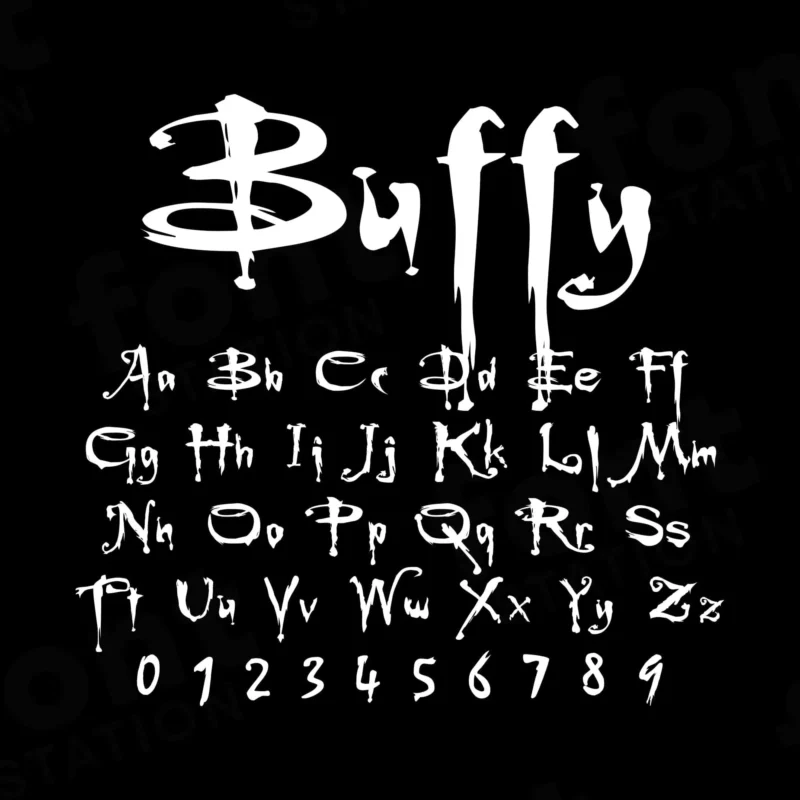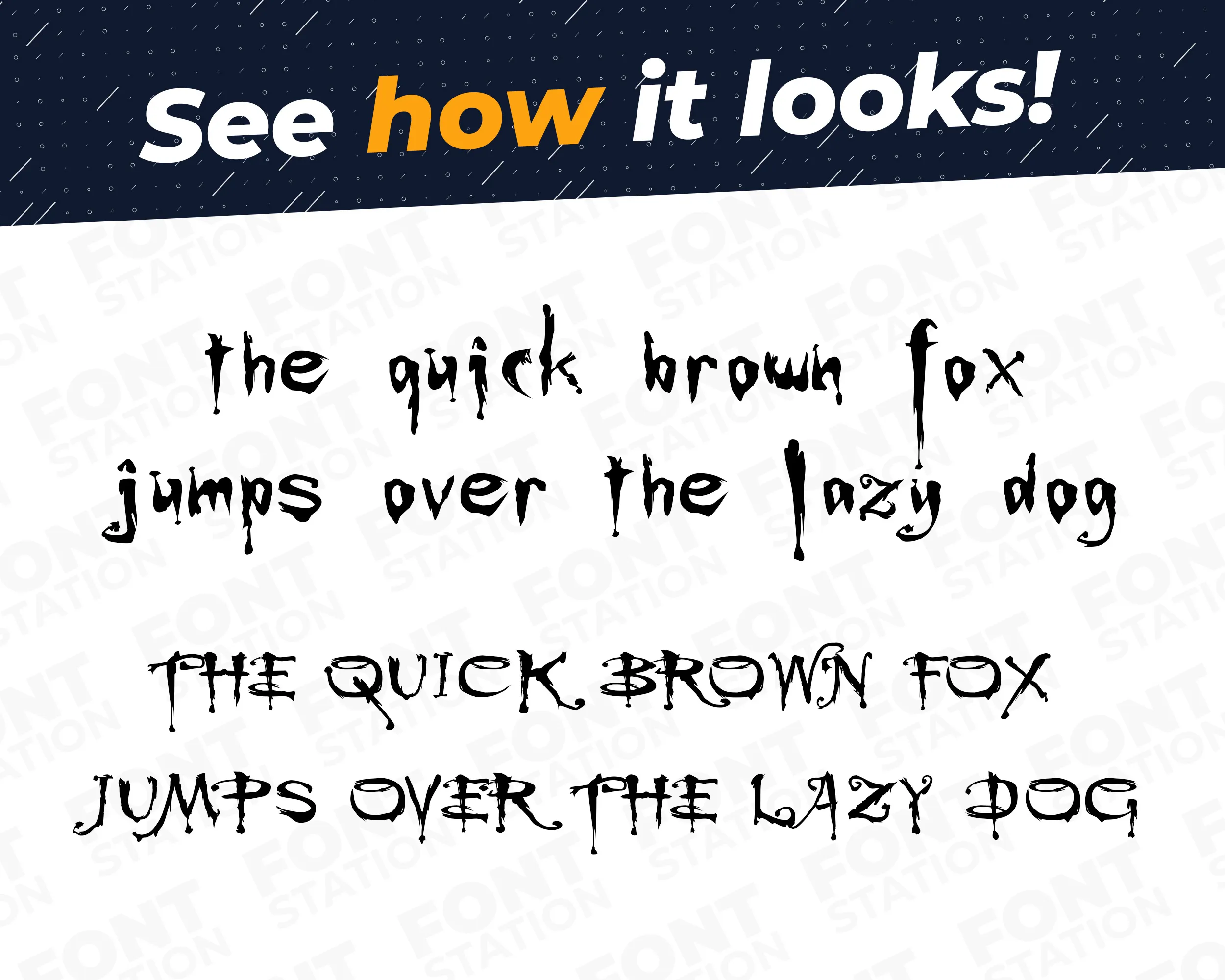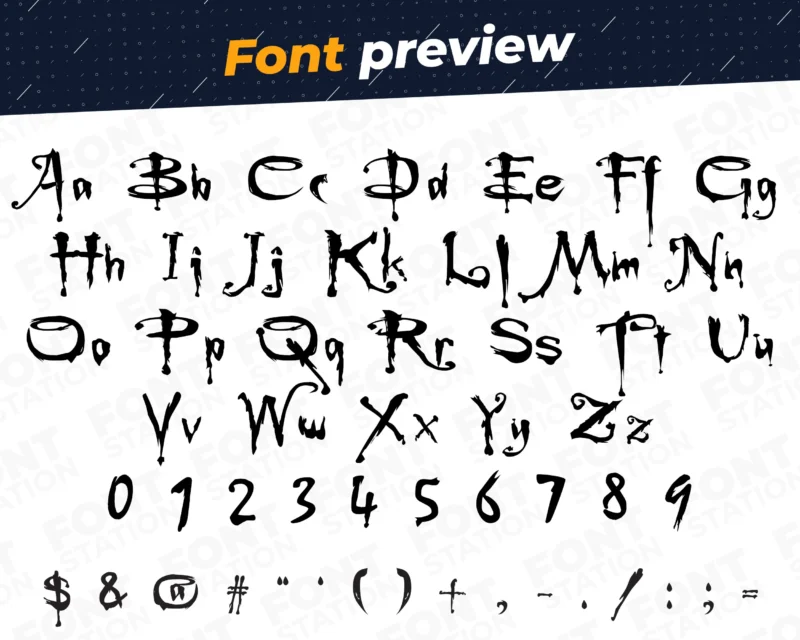
Our Buffee Vampire typeface, inspired from Buffy font
Grab your computer, tablet or other device and start creating right now with our Buffy font letters! Our Buffee Vampire typography is inspired from Buffy TV series font, making it ideal for various digital creations (logo, word…), sublimation, cake toppers, stickers, event decorations, and more.
Image showing all characters available in the Buffy Vampire font created by FontMaze